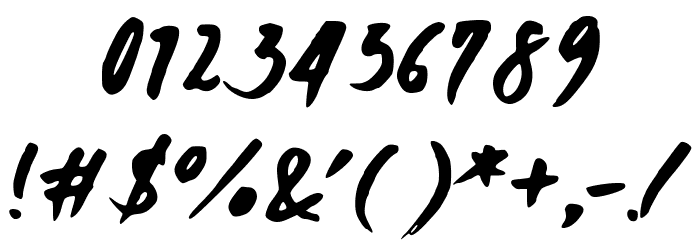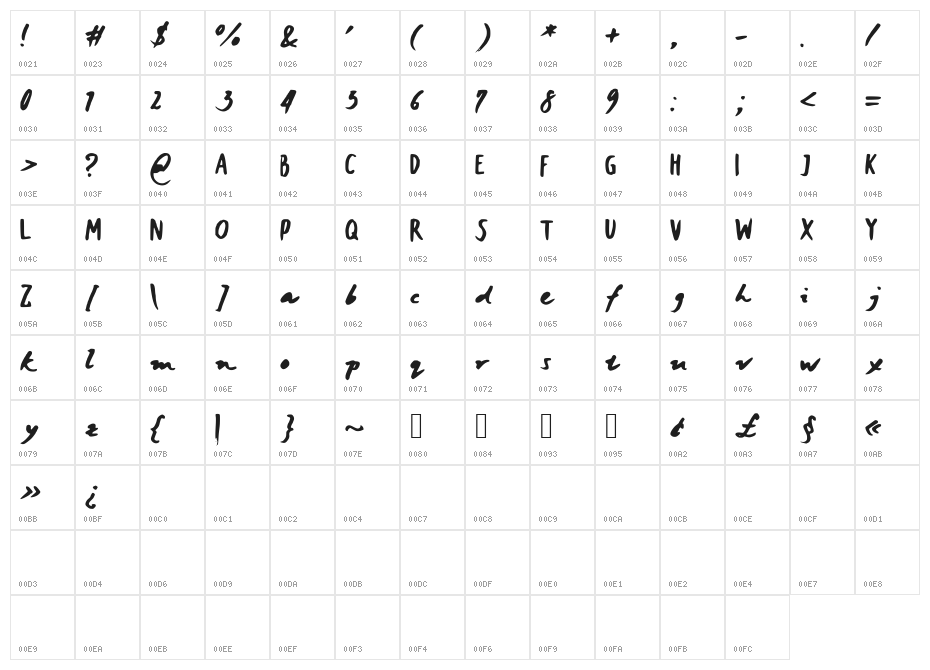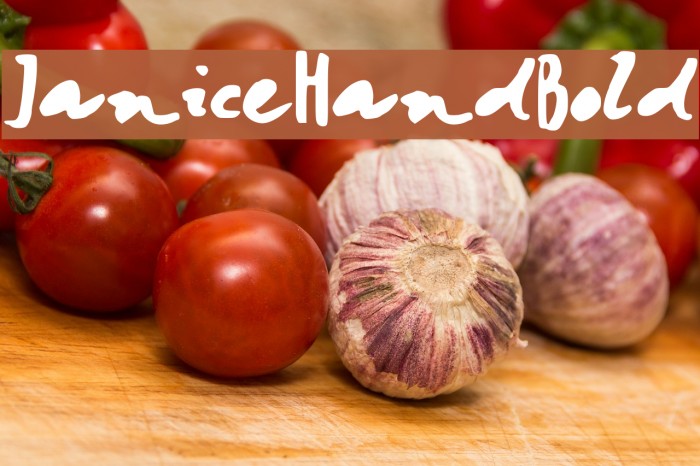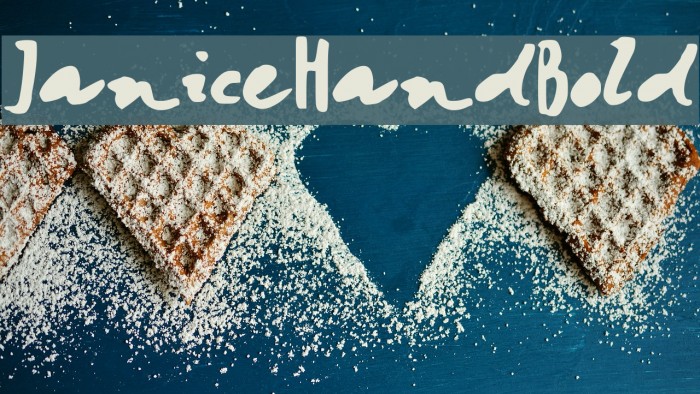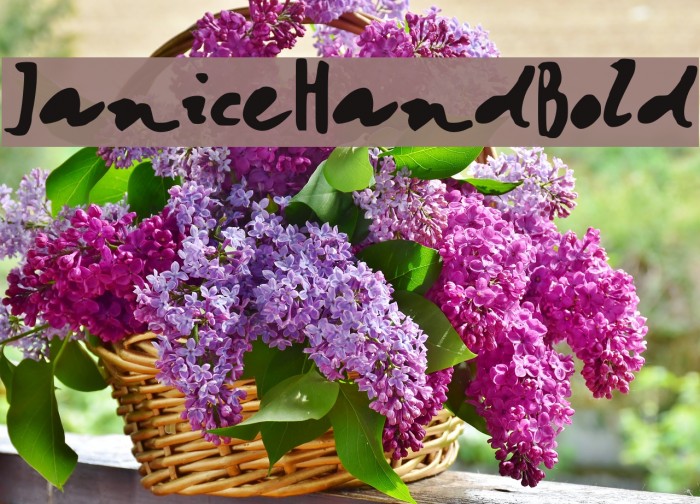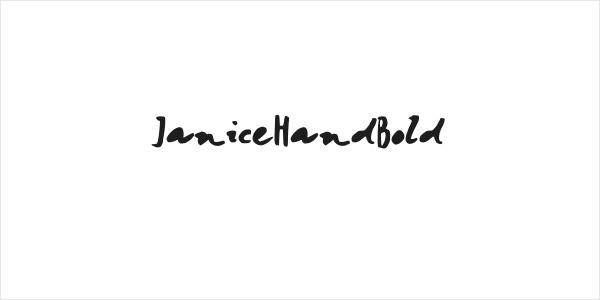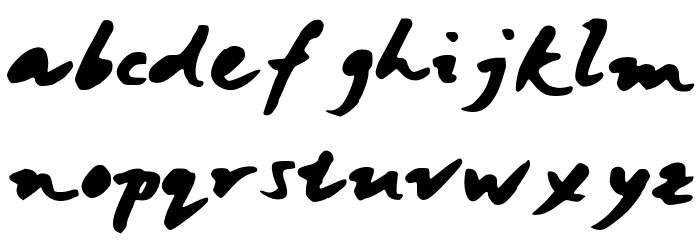
JaniceHandBold Font
JaniceHandBold Description
This font features a bold, handwritten style that exudes a sense of personal touch and creativity. The uppercase letters are strong and slightly condensed, while the lowercase letters maintain a fluid and dynamic appearance, reminiscent of casual handwriting. The numbers and special characters are consistent with the overall style, offering a cohesive look. The strokes are thick and expressive, with a medium contrast that adds to the font's lively character. This font is perfect for projects that require a personal, informal, and artistic touch.
Use CaseLogos, Headlines, Creative projects
Proposed ProjectsIdeal for greeting cards, invitations, personal branding, and creative posters.